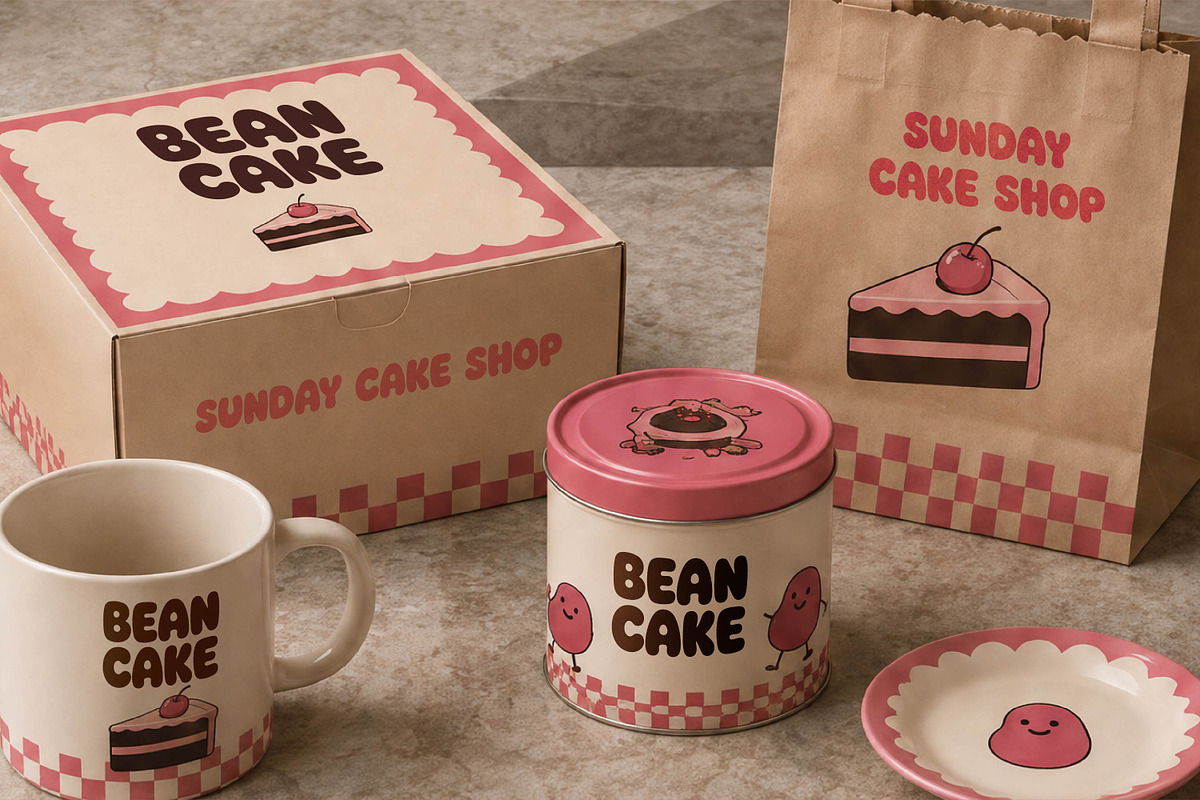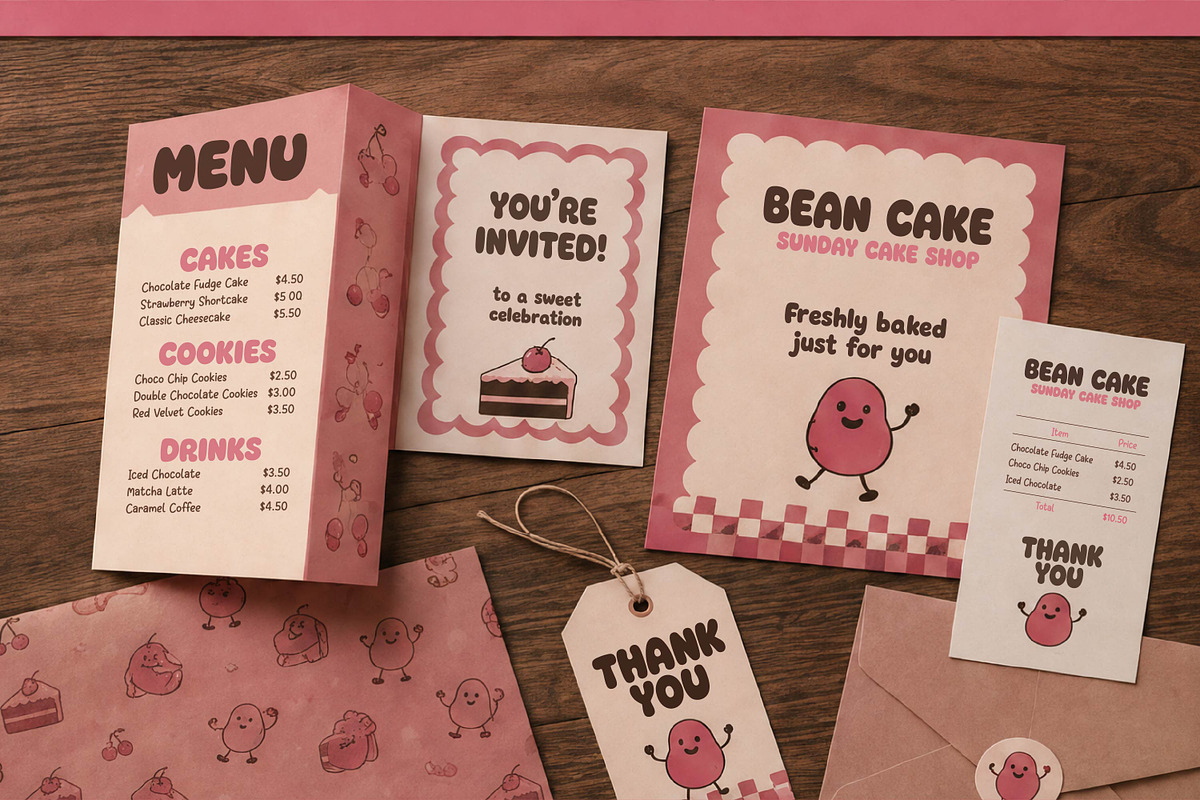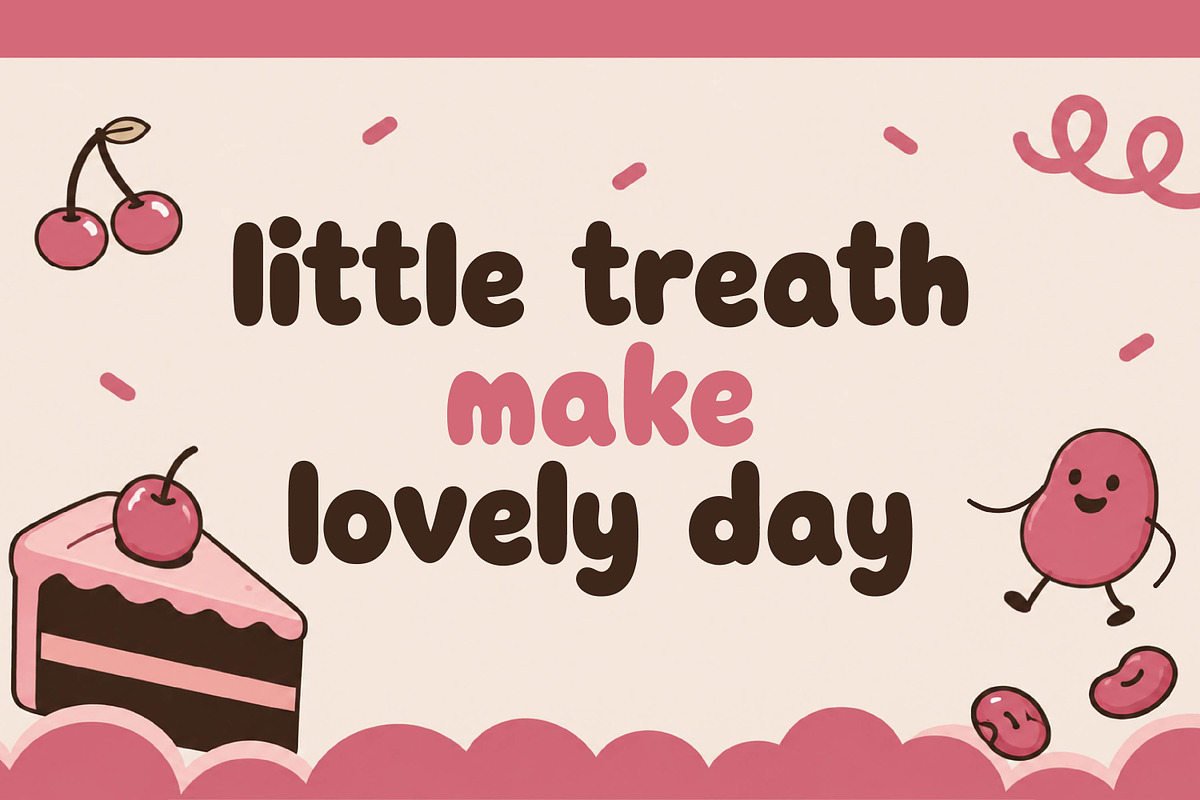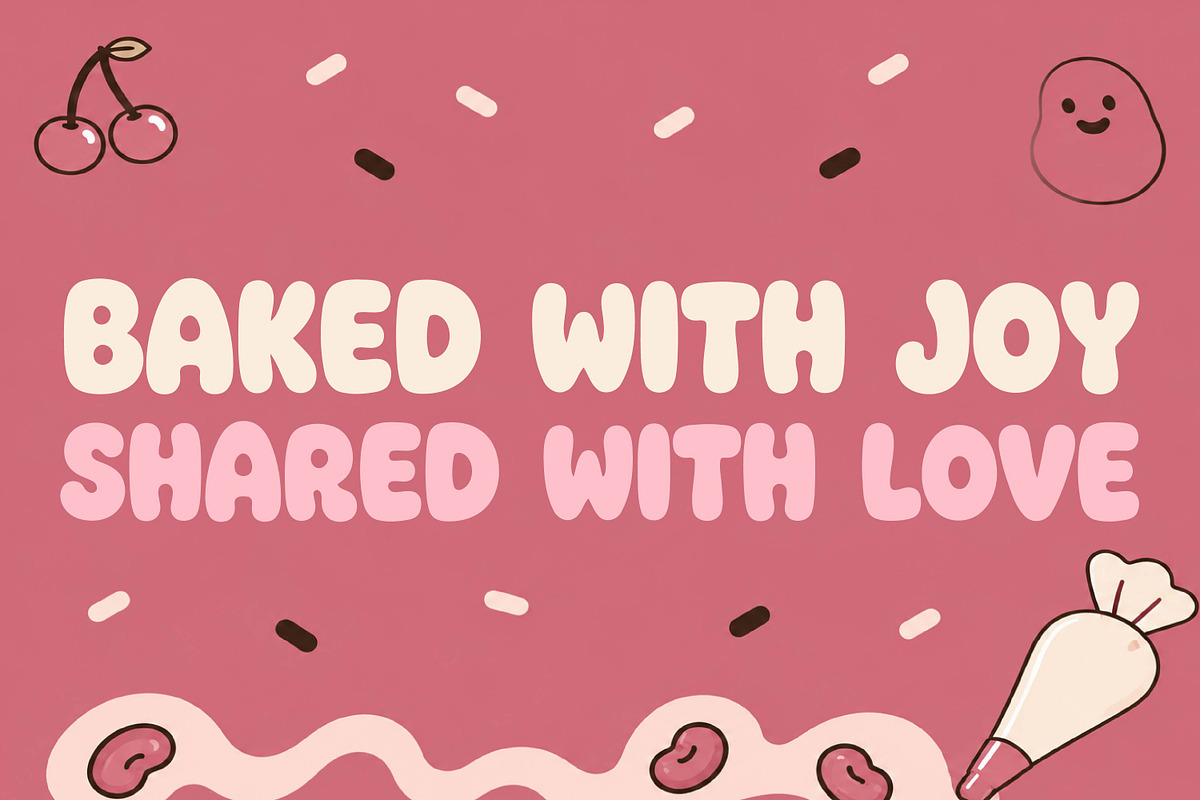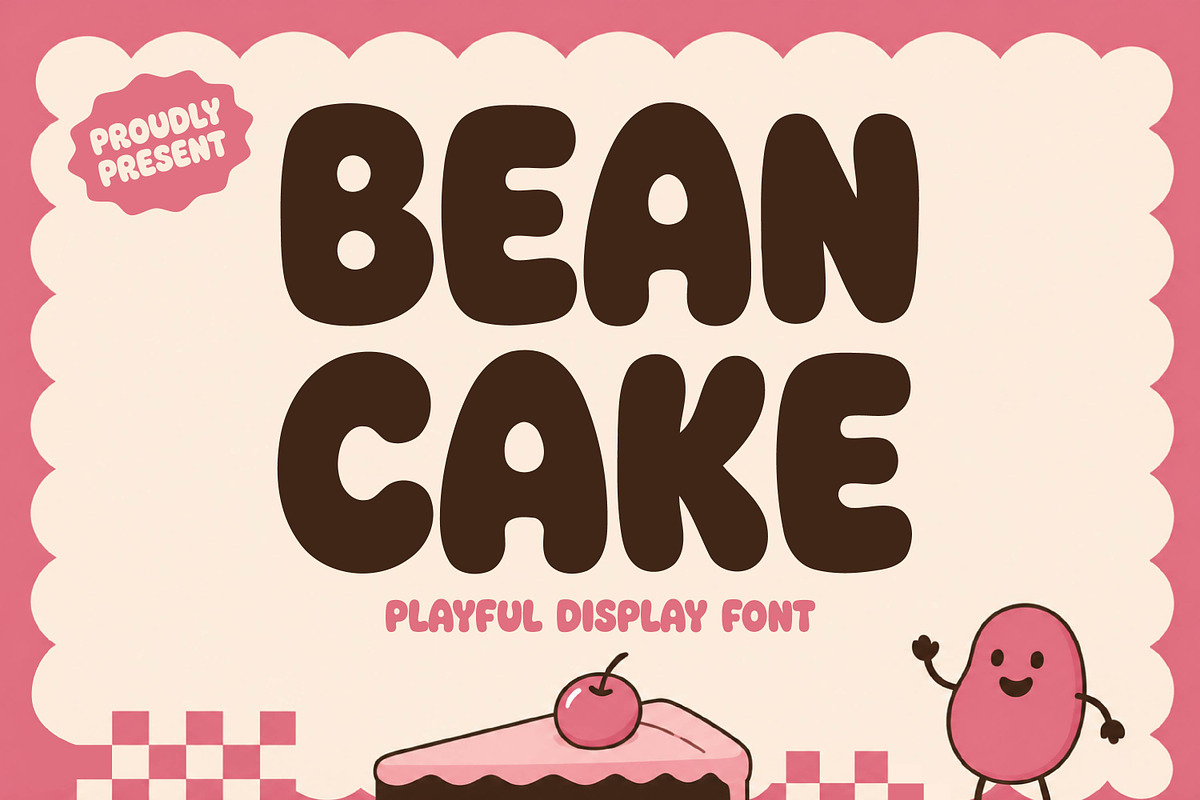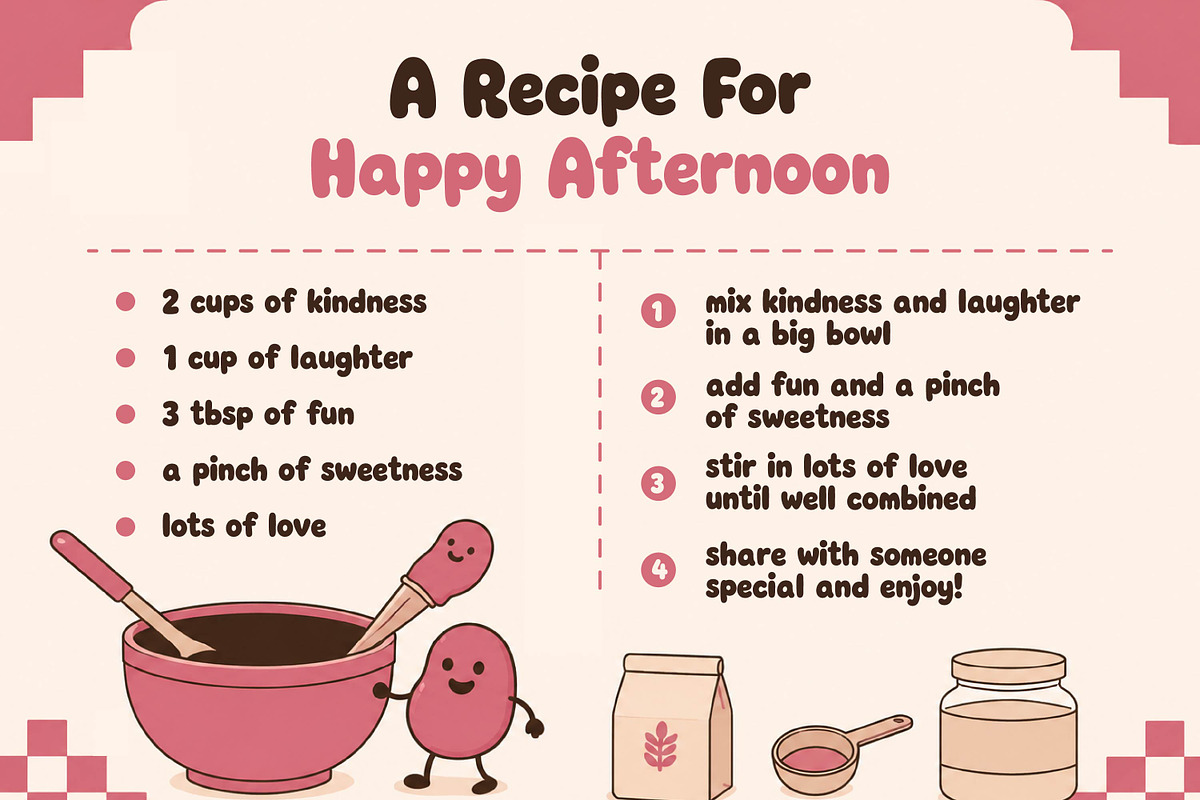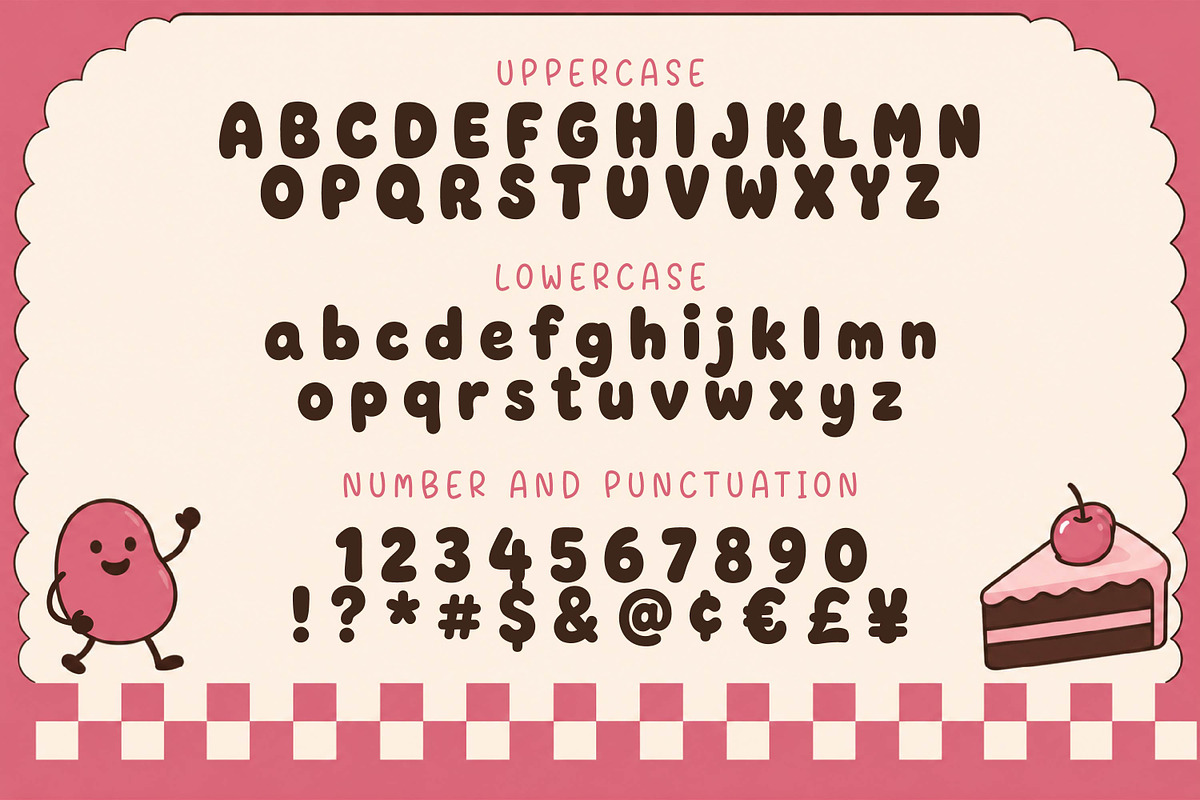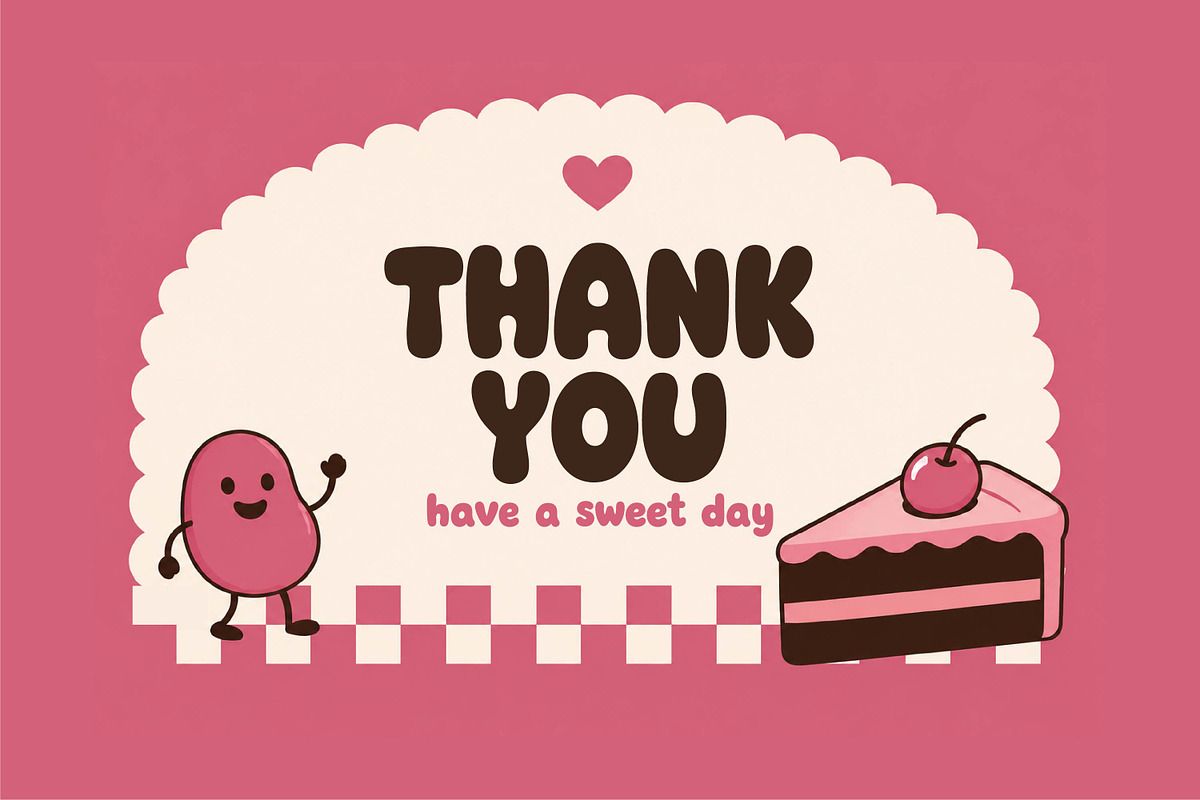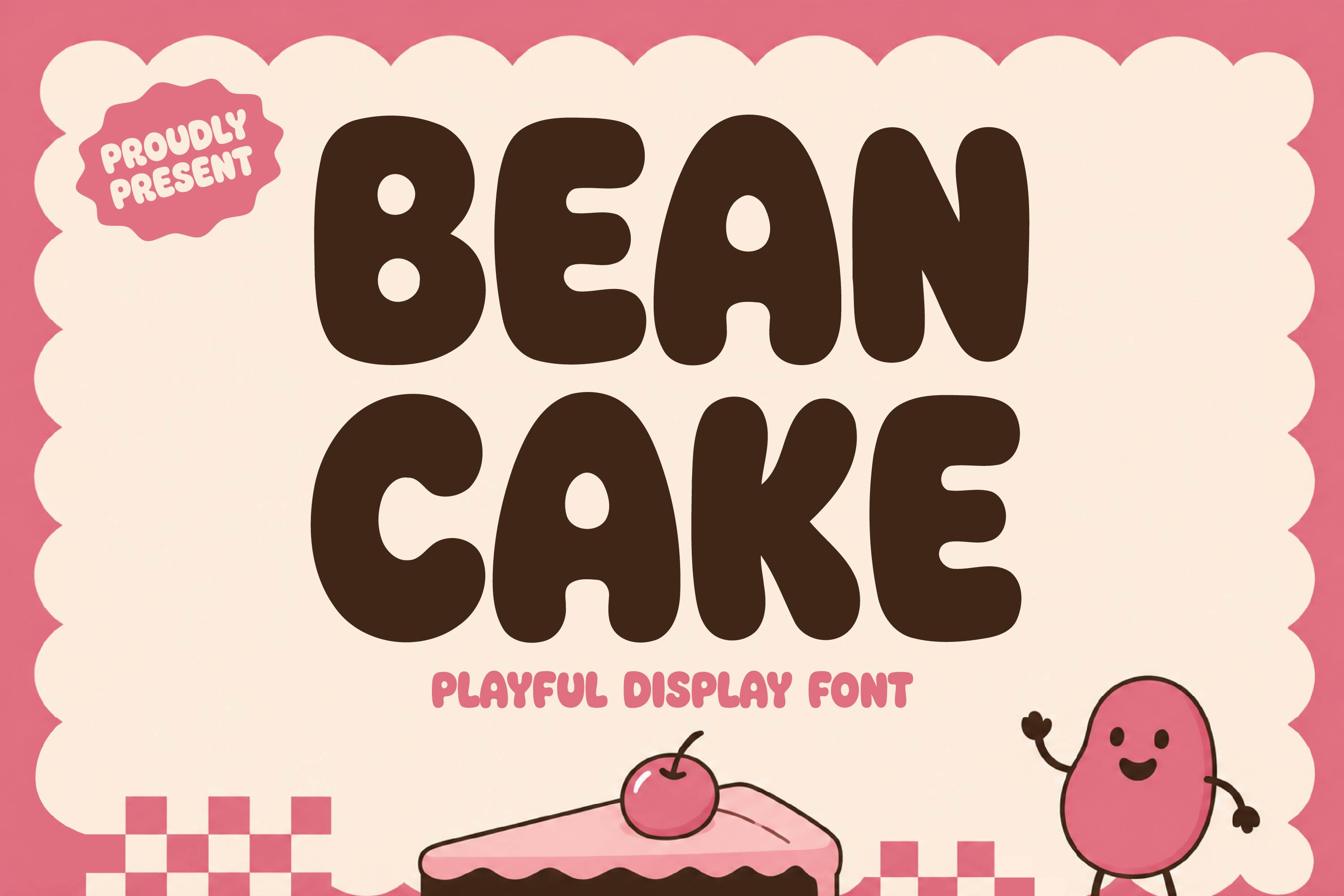
Bean Cake - Playful Display Font
Bean Cake is a bold and playful display font with chunky rounded letterforms and a sweet, cheerful personality. Perfect for kids designs, food branding, packaging, posters, logos, stickers, merchandise, invitations, and fun creative projects that need a cute and eye-catching look.